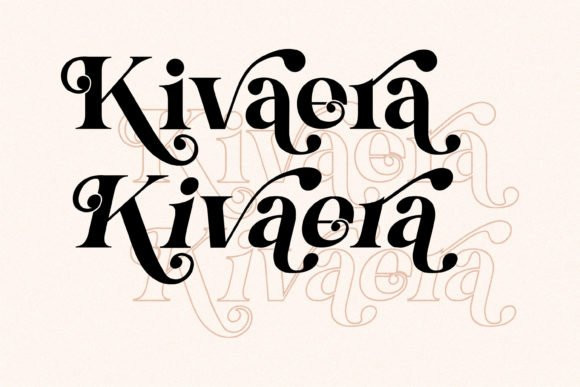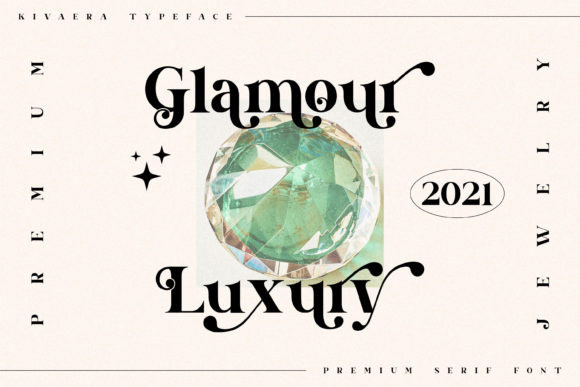
Kivaera Font
Kivaera FontKivaera is a bold, elegant and thick lettered serif font. This font is PUA encoded which means you can access all of the glyphs and swashes with ease!
Fall for its ravishing style and use it to create gorgeous designs!